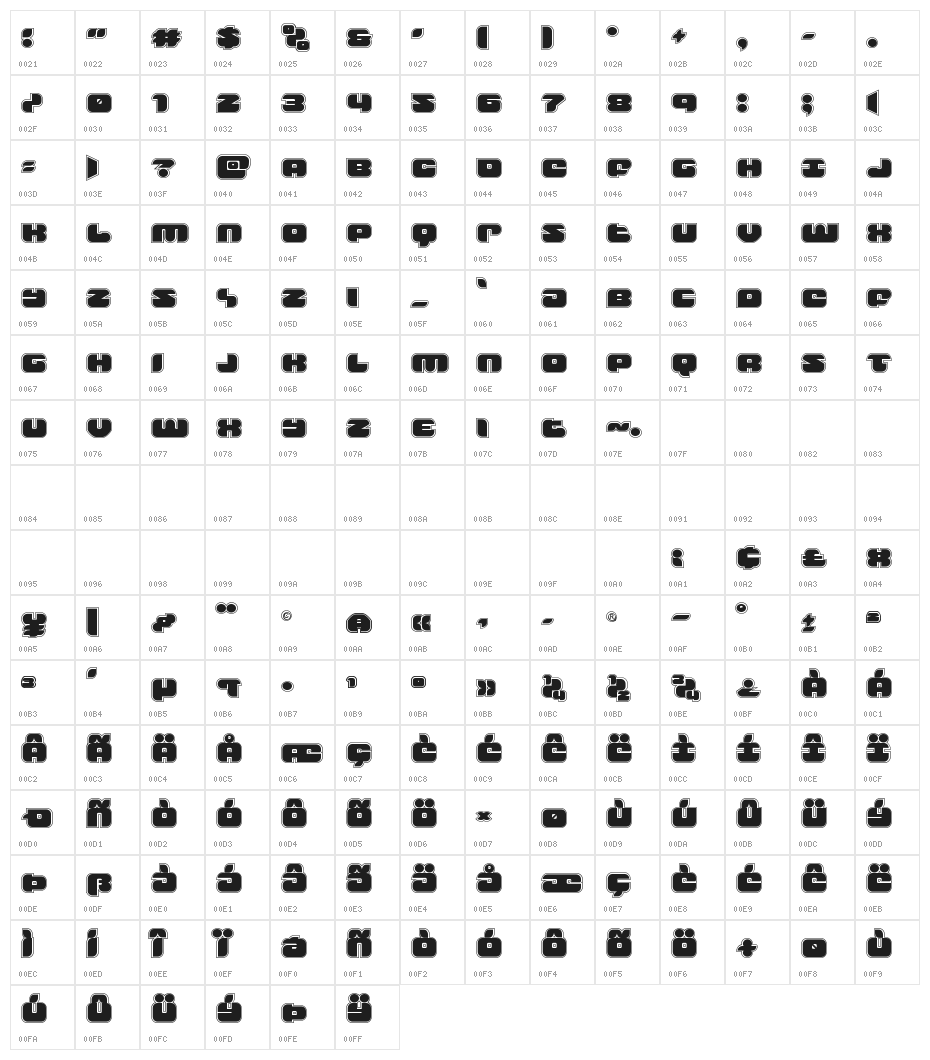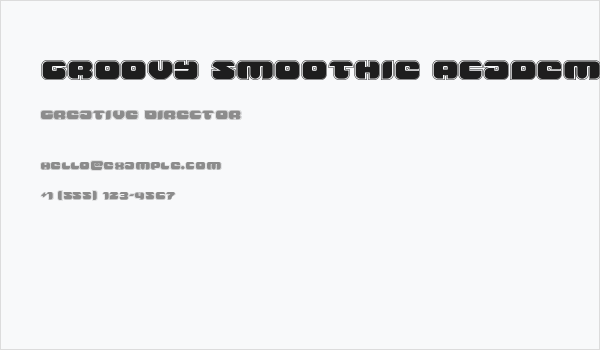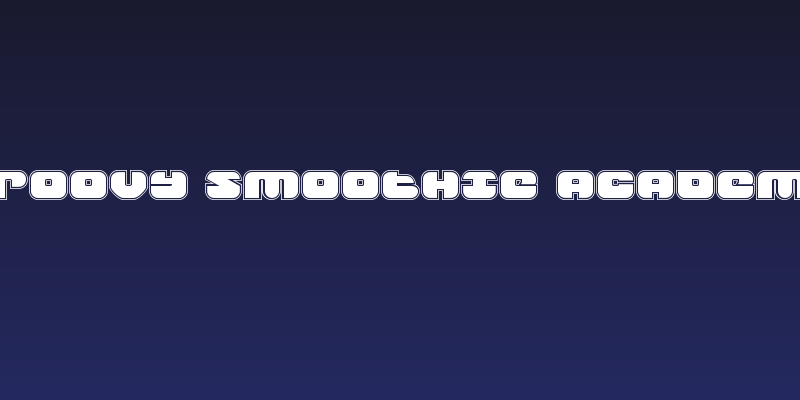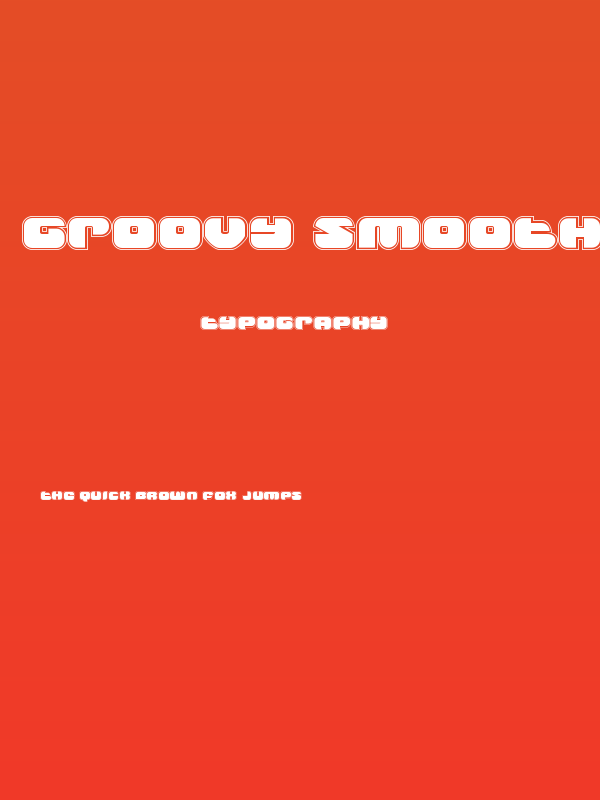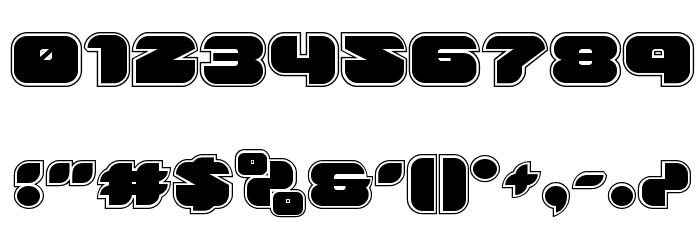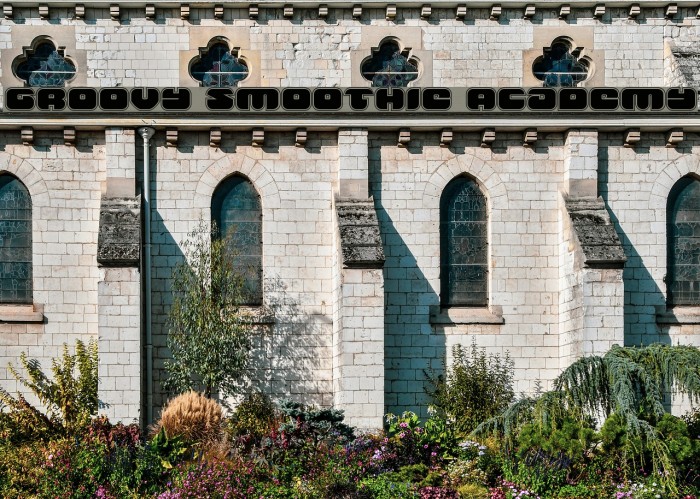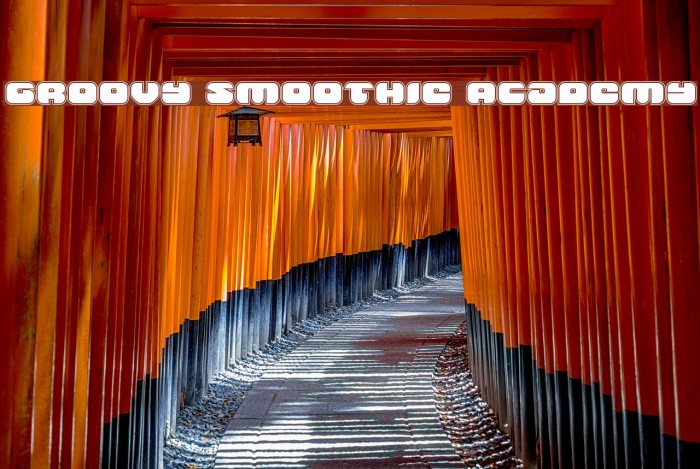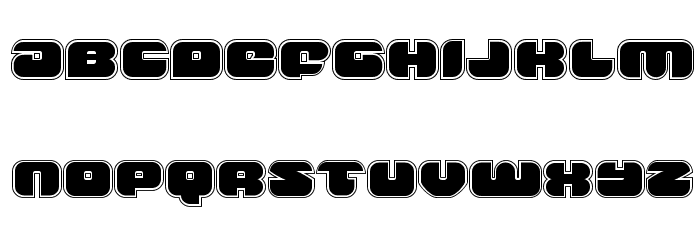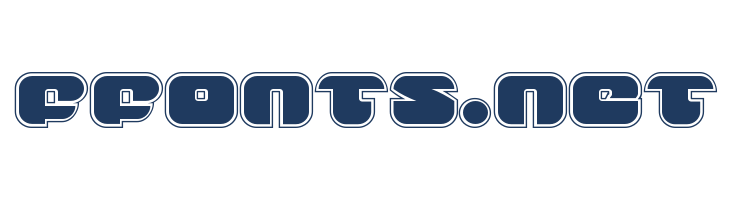
Groovy Smoothie Academy Font
This font features a bold and playful design with a retro vibe. Each character is outlined with a thick border, giving it a three-dimensional appearance. The letters are rounded and smooth, evoking a sense of fun and creativity. The style is reminiscent of 1970s design, with a modern twist that makes it suitable for contemporary projects. The font's unique aesthetic is eye-catching and memorable, making it ideal for projects that require a distinctive and lively typeface.
| Overall Style | Retro, Playful |
| Proposed Projects | Ideal for posters, logos, branding, and any project that requires a playful and retro aesthetic. |